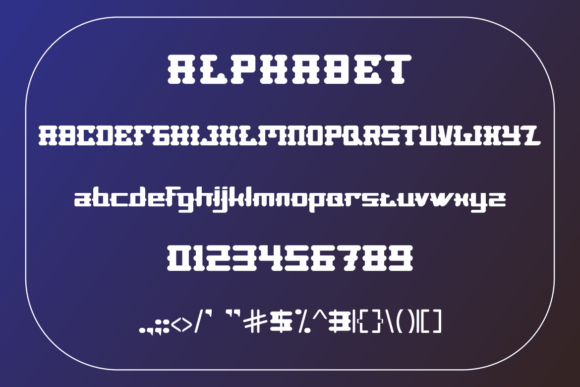
Introduction to Layotoh Font
Layoth is a bold and unique display font.
The font is suitable for any branding project like logo, t-shirt printing, esport, and many more It will look outstanding in a wide range of contexts.
Key Features of Layotoh Font